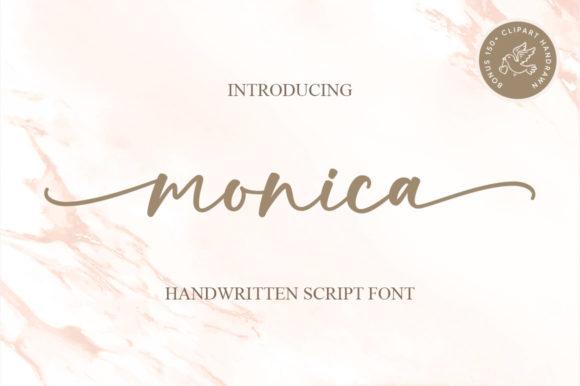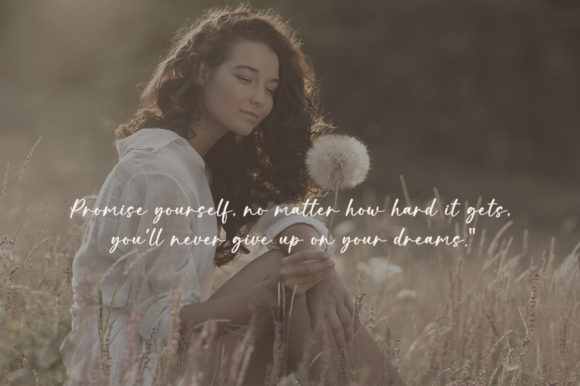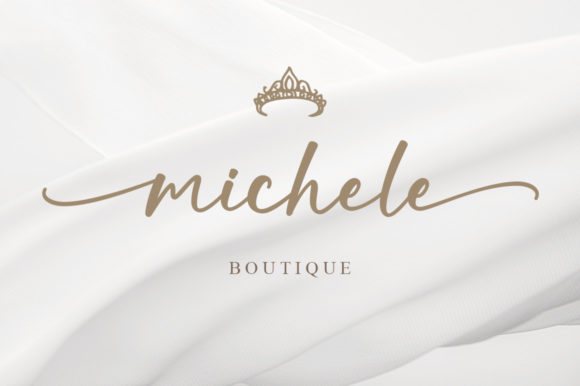
About Monica Font
Monica is a thin lettered and graceful script font. Trendy and stylish, this font will elevate each of your creations. Monica is PUA encoded which means you can access all of the glyphs and swashes with ease!